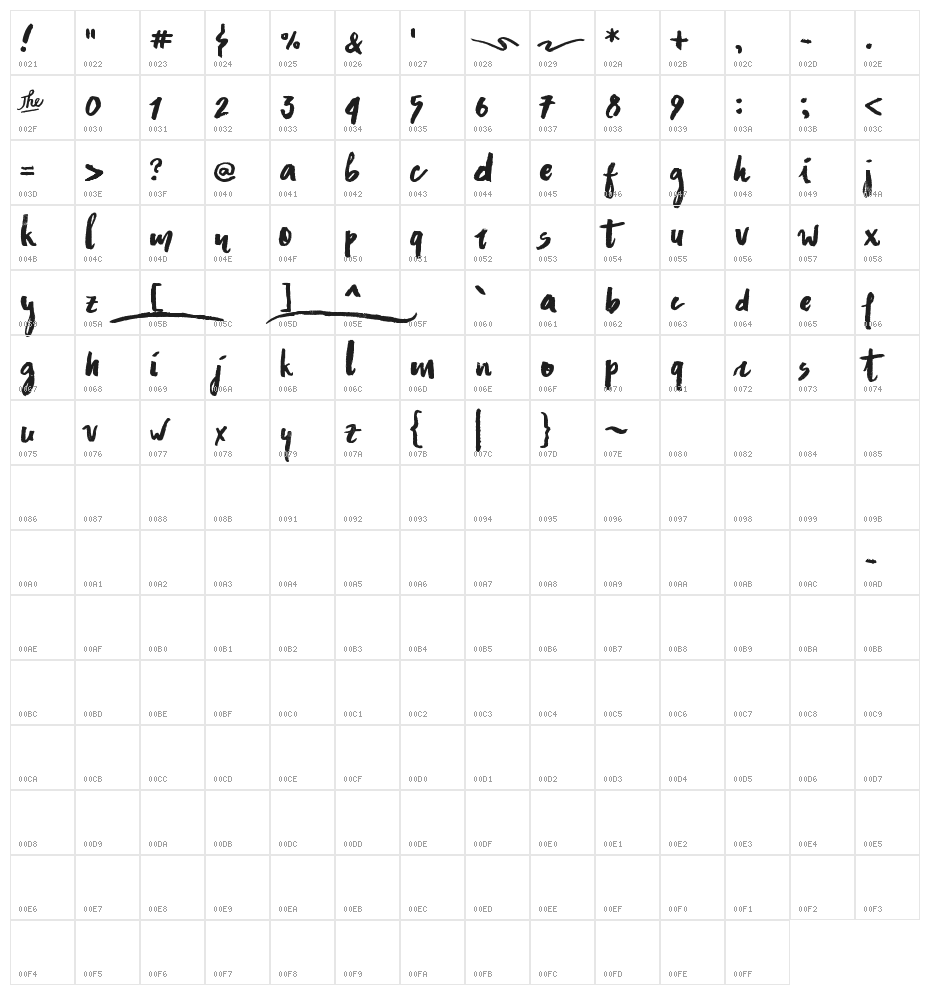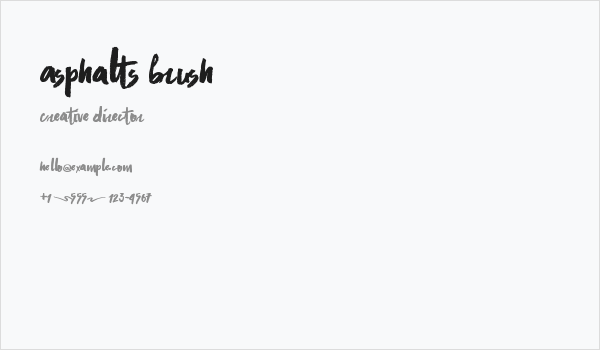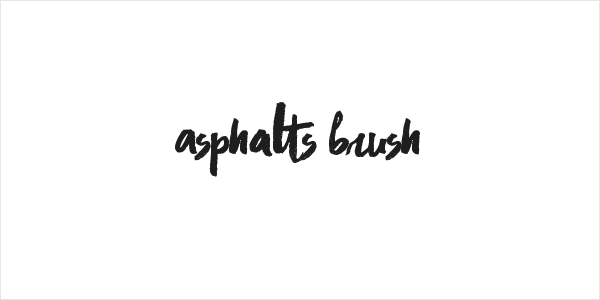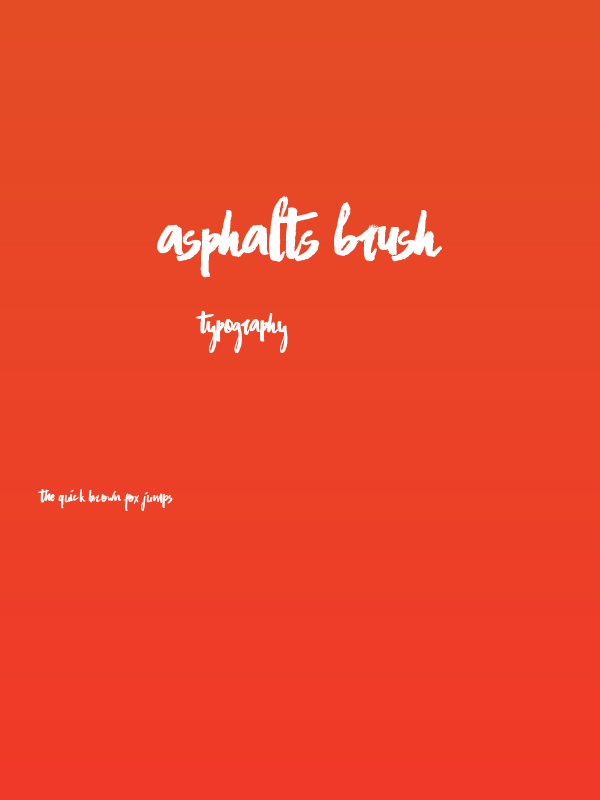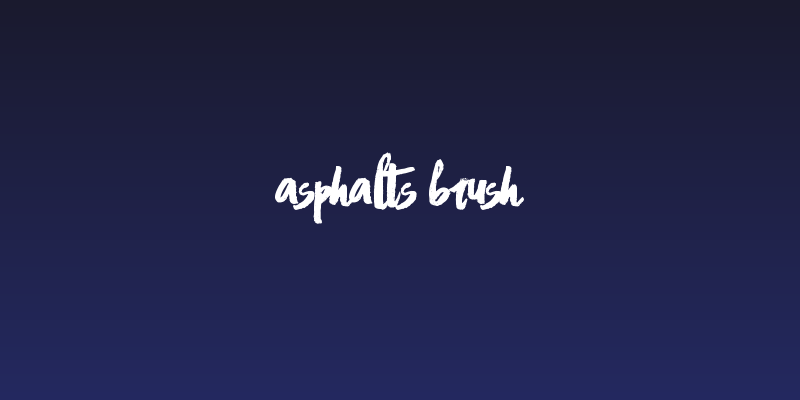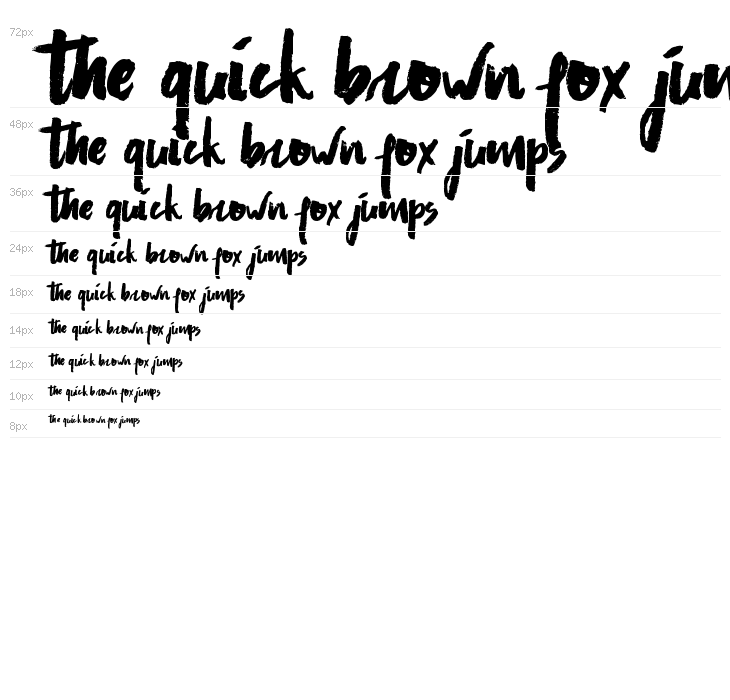
Asphalts Brush Font
Asphalts Brush Description
This font exudes a bold and expressive style, reminiscent of brush strokes with a raw and dynamic texture. The characters are crafted with a sense of movement, giving them a lively and energetic feel. The strokes vary in thickness, adding a natural and handcrafted appearance. This font is perfect for projects that require a personal touch or an artistic flair, such as posters, invitations, or branding materials. Its unique style captures attention and conveys a sense of creativity and spontaneity.
| Proposed Projects | Ideal for posters, invitations, branding, and any project needing an artistic touch. |